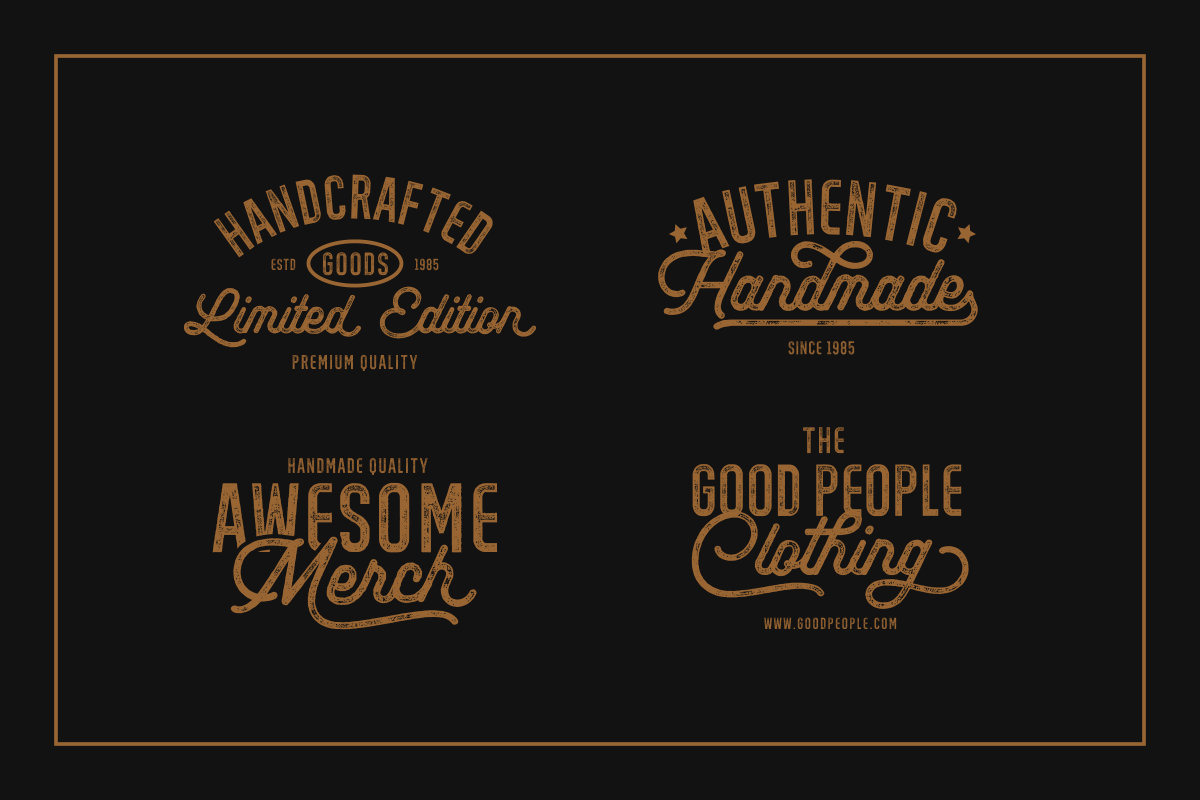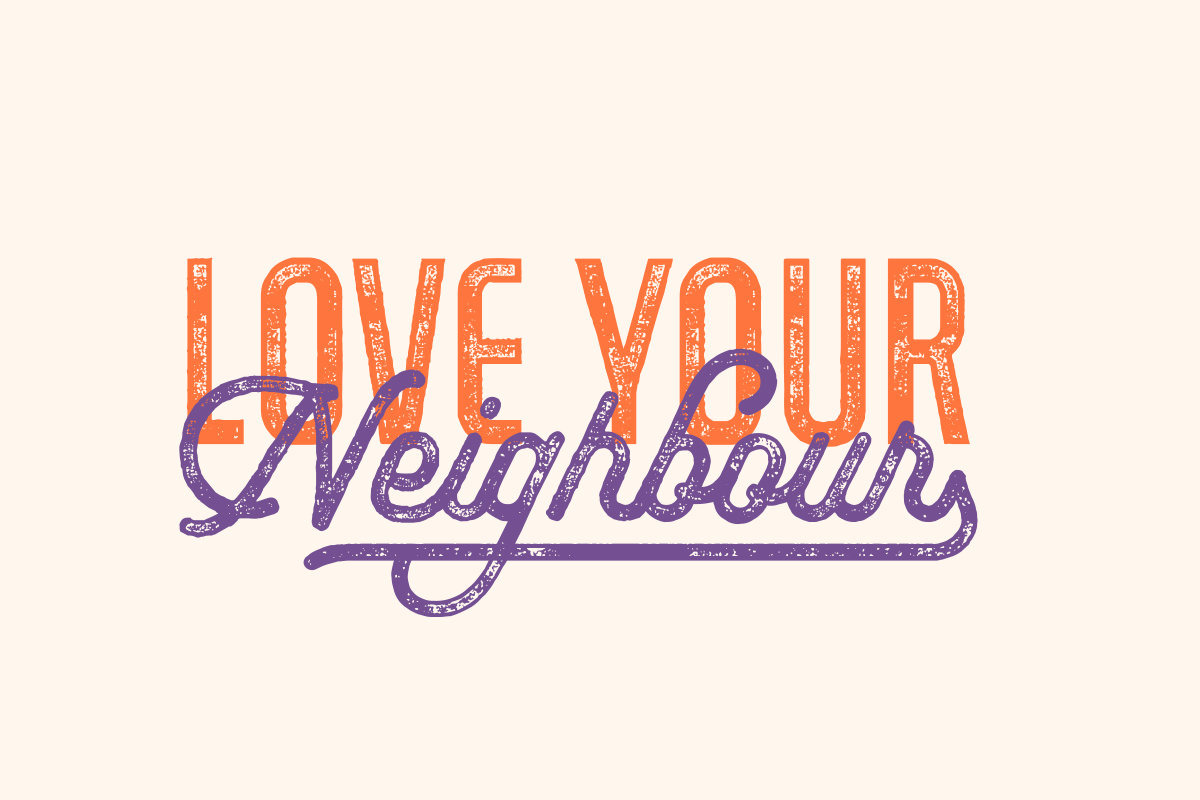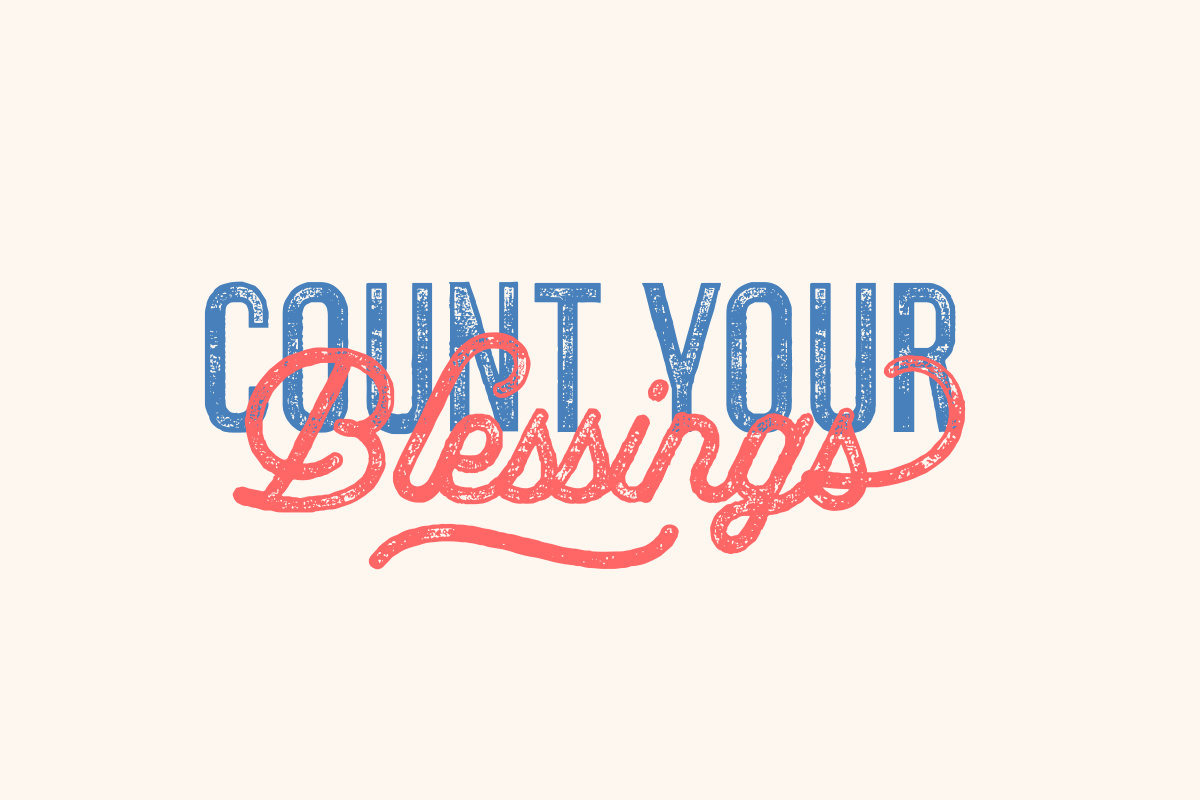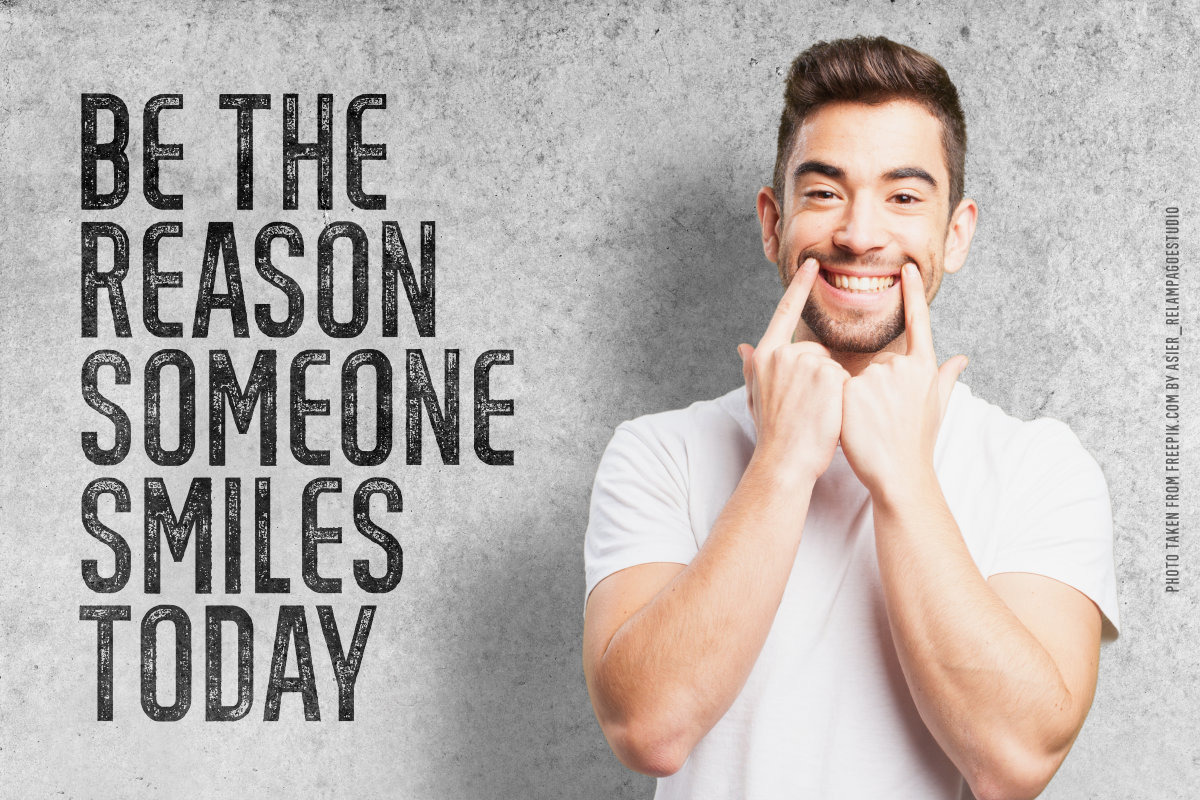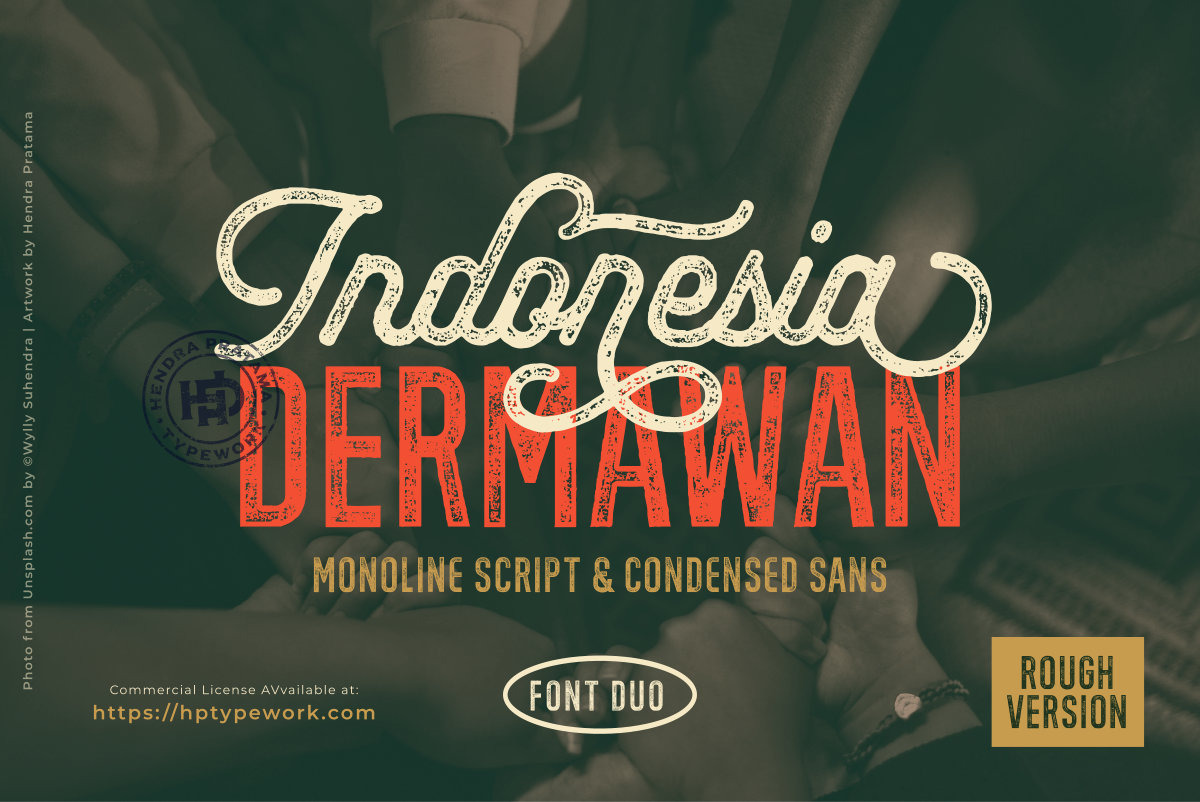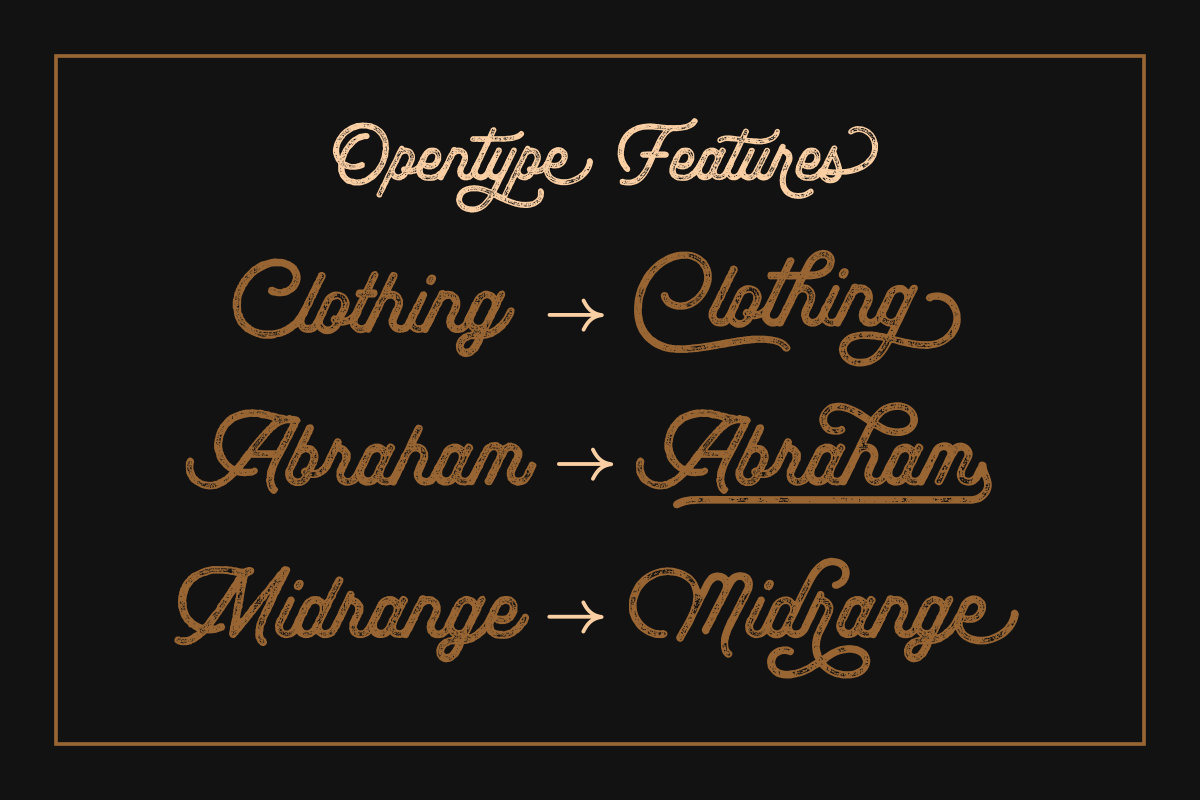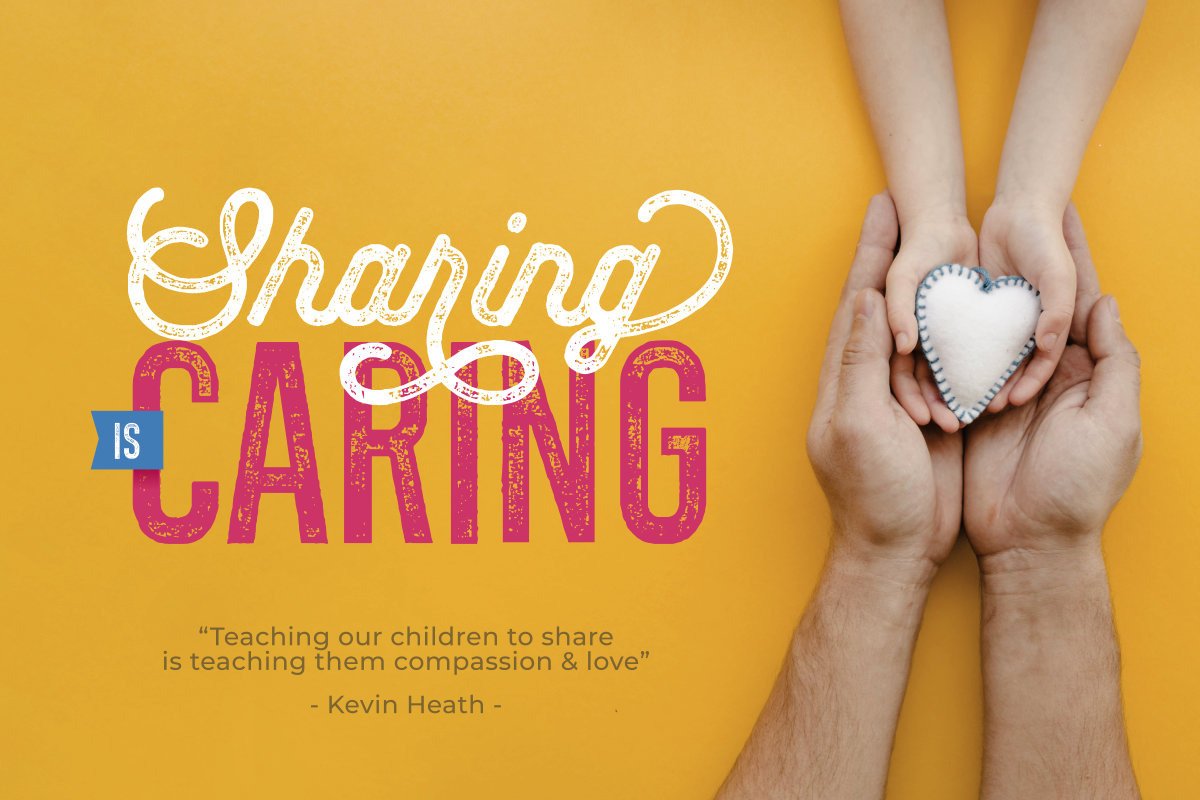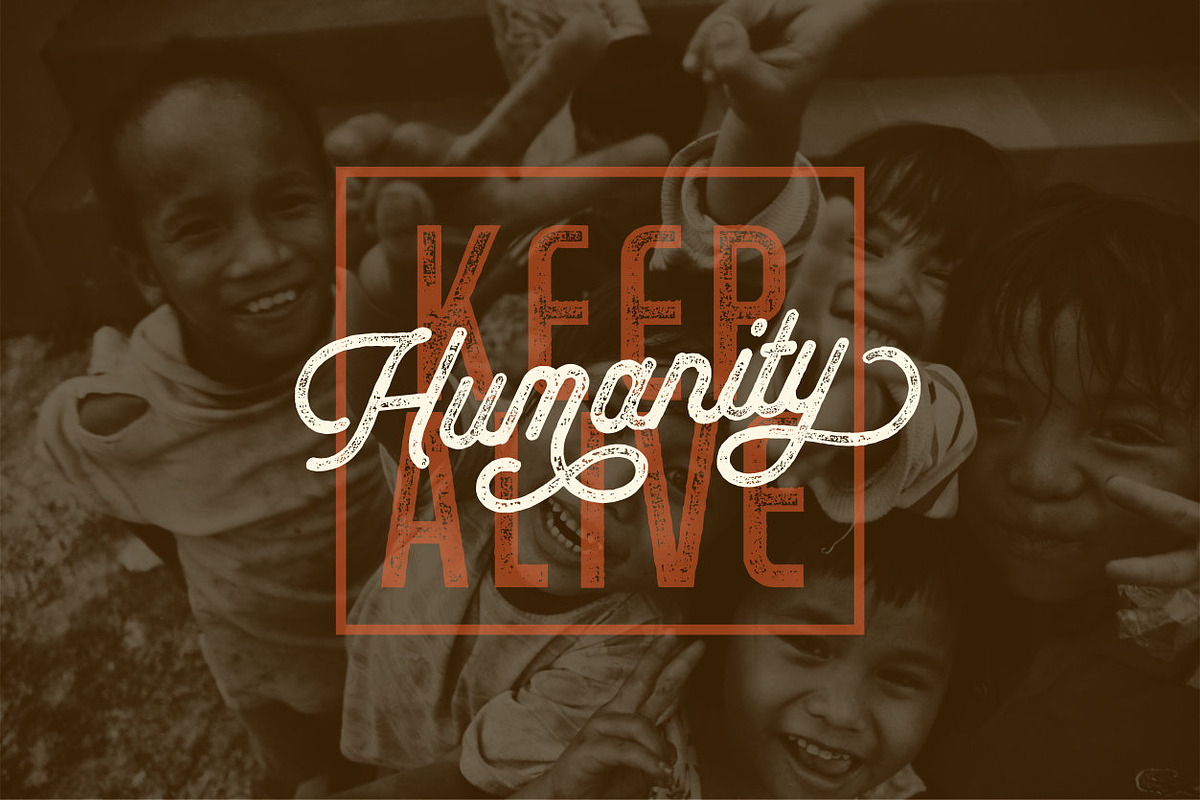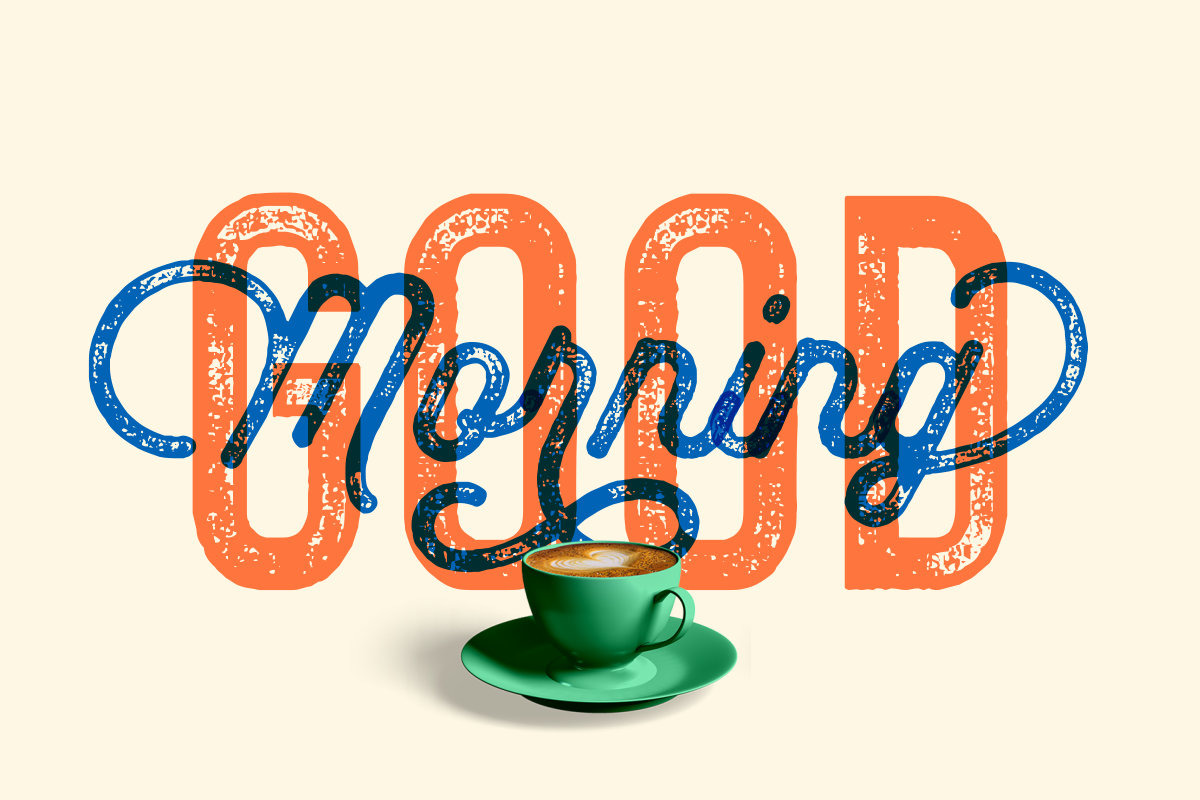
Indonesia Dermawan Font Duo - Rough
Indonesia Script — A bold, curvy, and playful, fully-connected monolined script. Most uppercase letters have a fancy alternate, and the lowercase letters have a bunch selection of alternates for you to select, to suit your typographic best.
A companion display font is Dermawan Sans. Typically a titling font, it is tall enough for heading, and offcourse large size text are always best for titles.
Designed to communicate an elite sensibility, this font duo is equally built from the core principle of sophisticated typography. The all-caps titling font has a solid weightiness, delivered in a slightly assertive and vivid clarity. And the bold and playful monoline scripts complete the aesthetic.
This font duo lets you organize harmonious typography for posters, logotypes, or any multipart media. Both fonts supports many languages. Includes numerals, symbols, and plenty alternative letters in the package.